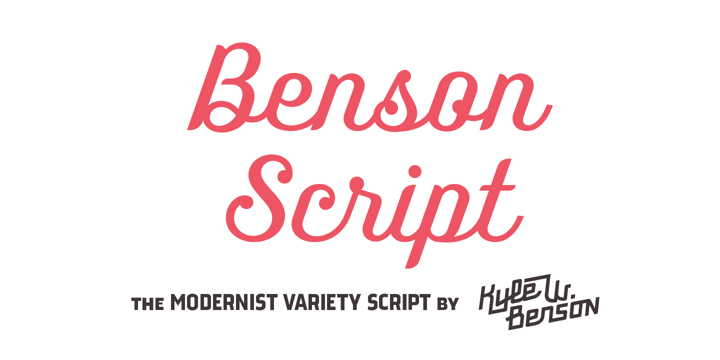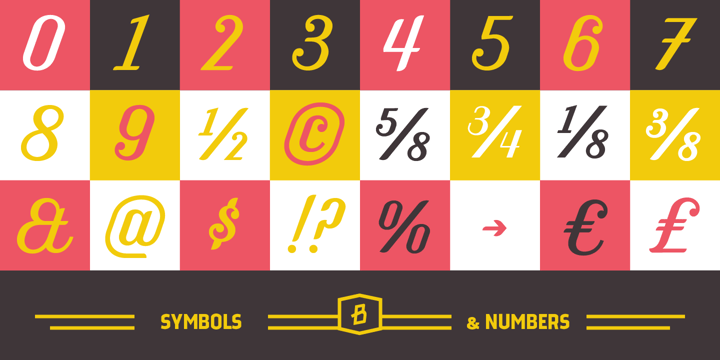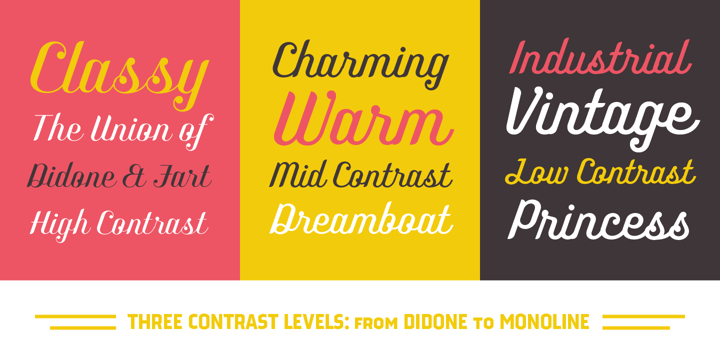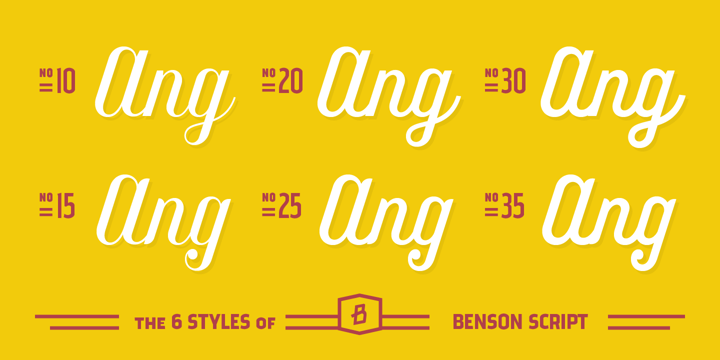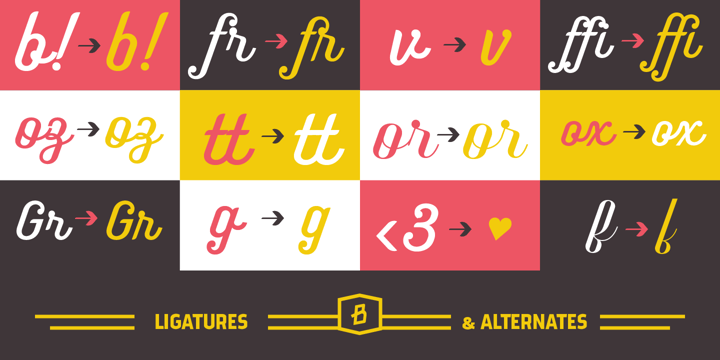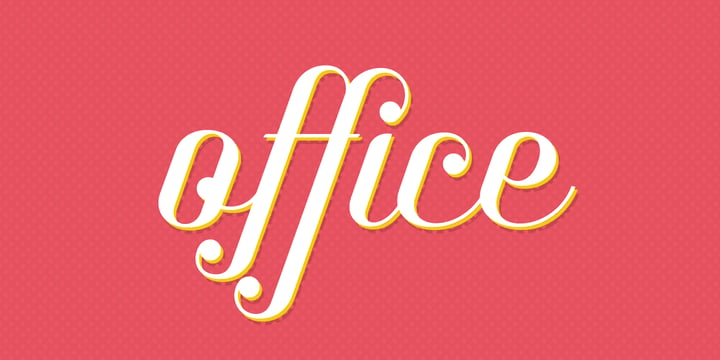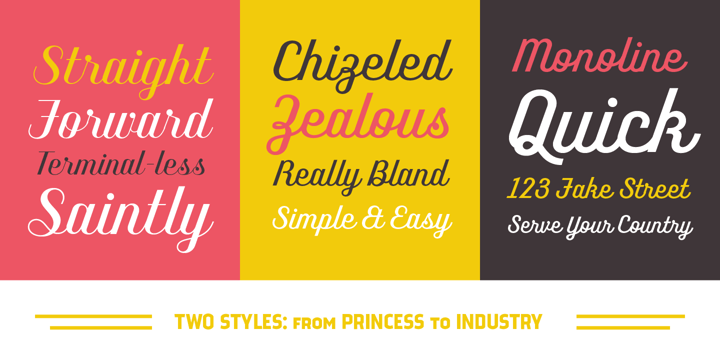
Benson Script
Font Family by Kyle Wayne Benson
Buy NowBenson Script is a script that is desperately trying to be anything but a script. With 3 contrast levels, and 2 styles, the six styles of Benson Script are an experiment in the diversity of a single stem width.
Modernism's desire to fit all elements within geometric constraints and adhere to strong verticals has spread throughout type design, but has had little to do with the frills and ornaments of script. Cutting a script down to its bare bones is an offensive idea to many?almost seeming insulting to its genre. Benson Script bridges that genre gap between frill and function. As a matter of genre Benson Script errs on the side of modernism, and adds flair as a last resort.